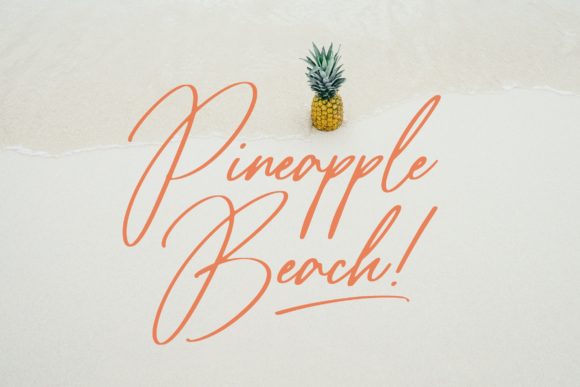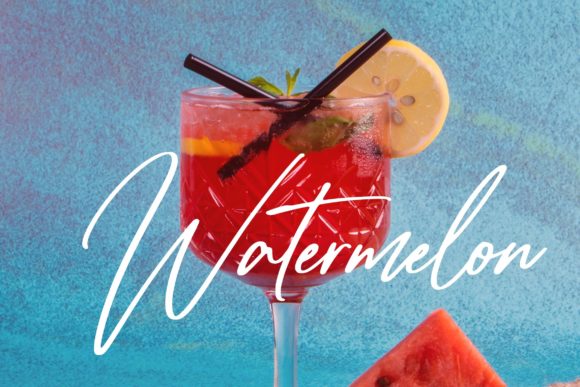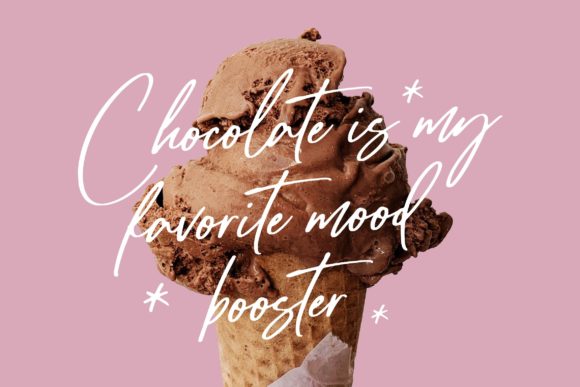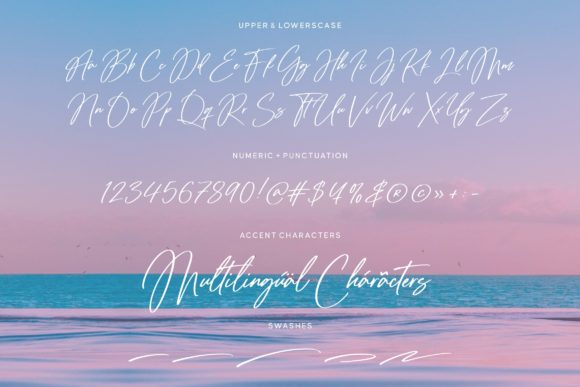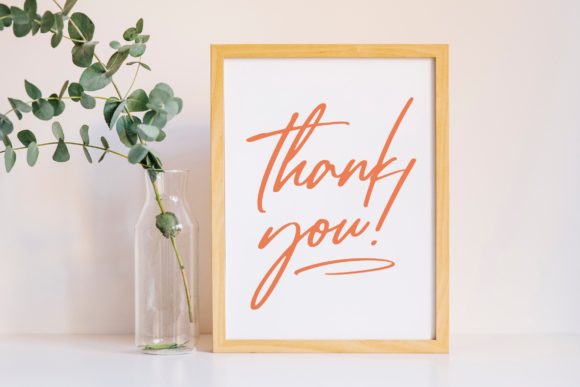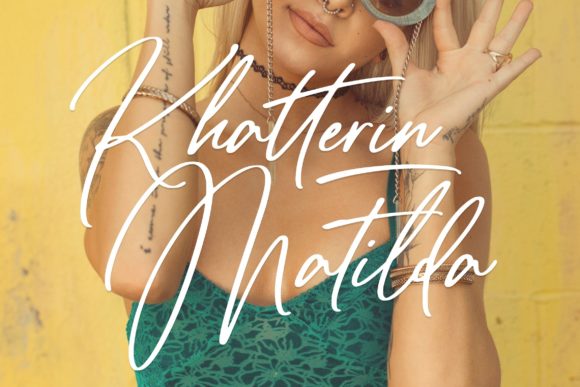
Tropical Harmony Script Font
About Tropical Harmony Script Font
Tropical Harmony Script is an enchanting handwritten font. This versatile script font has a wide spectrum of applications ranging from greeting cards to headlines and is guaranteed to add a romantic feel to your next project.